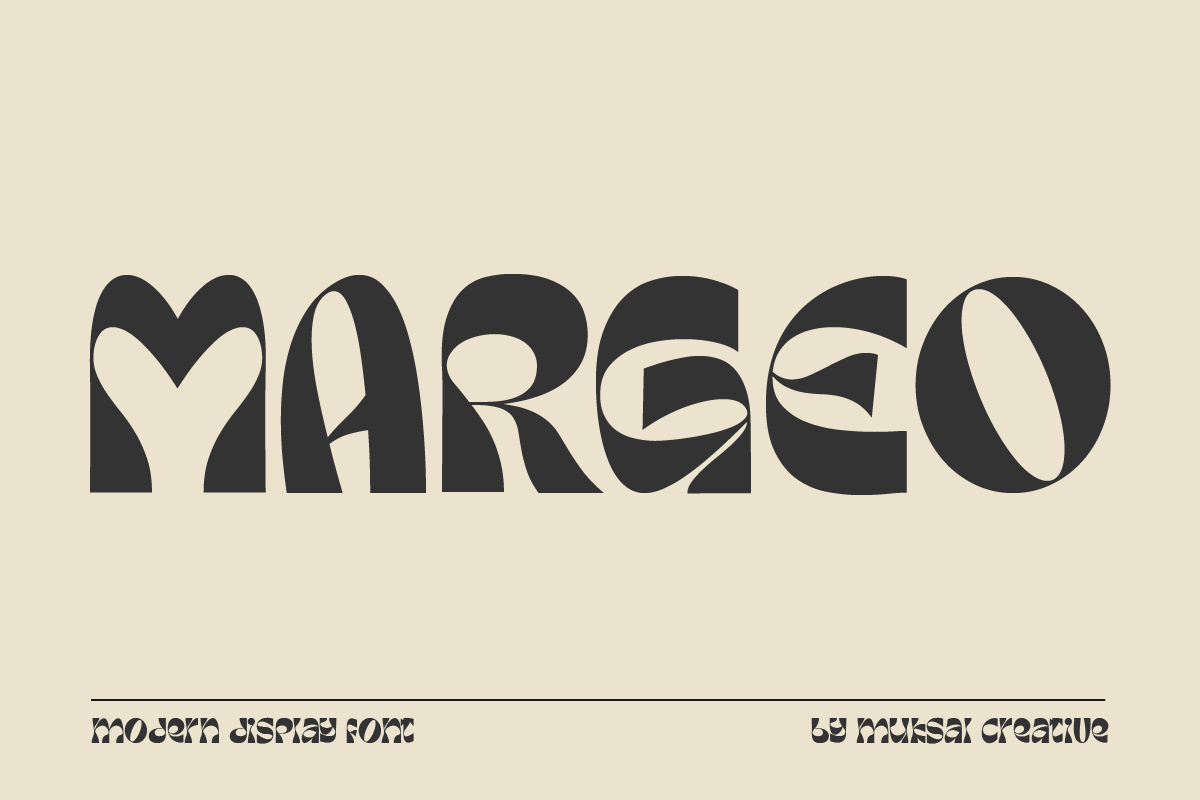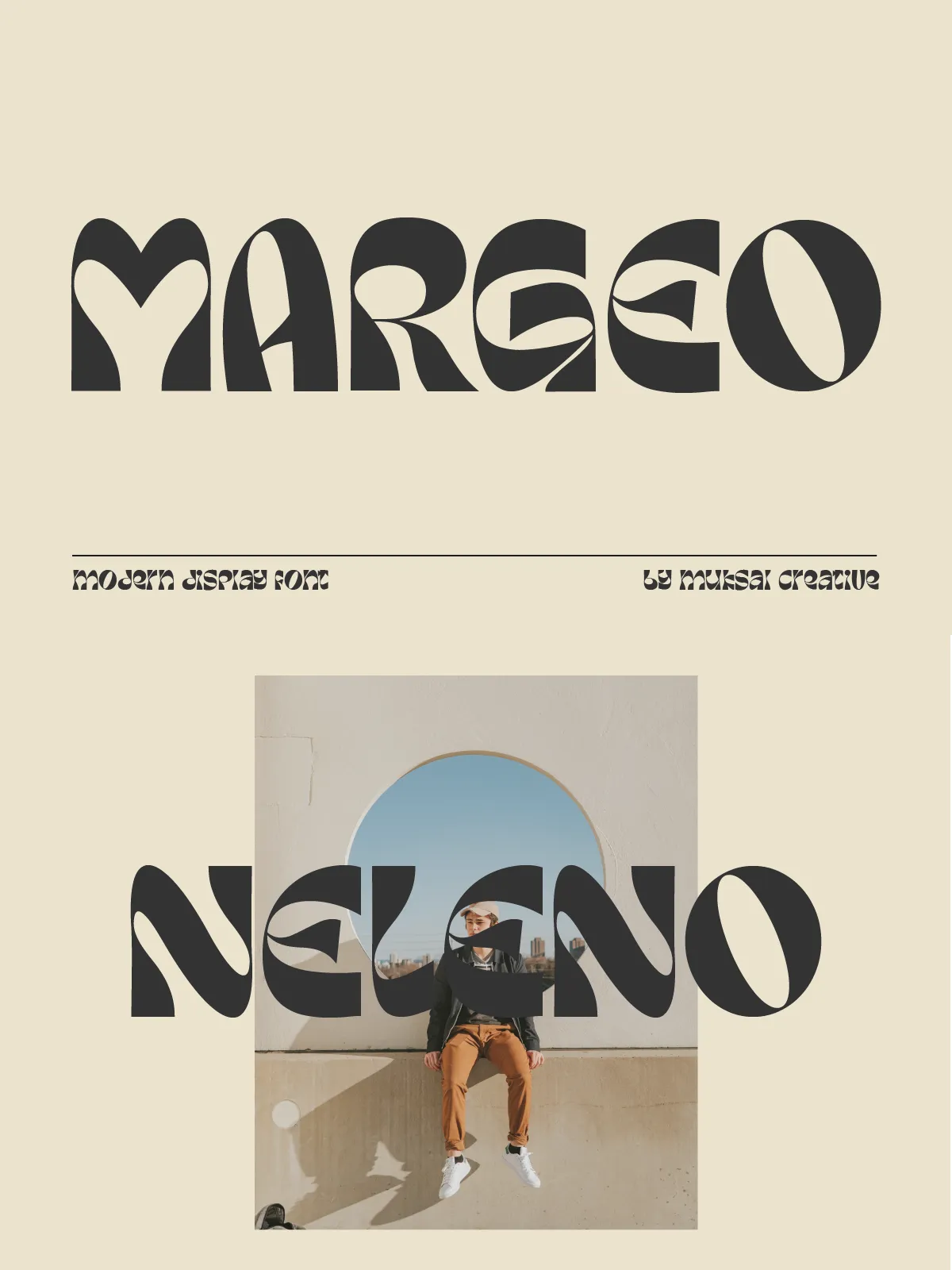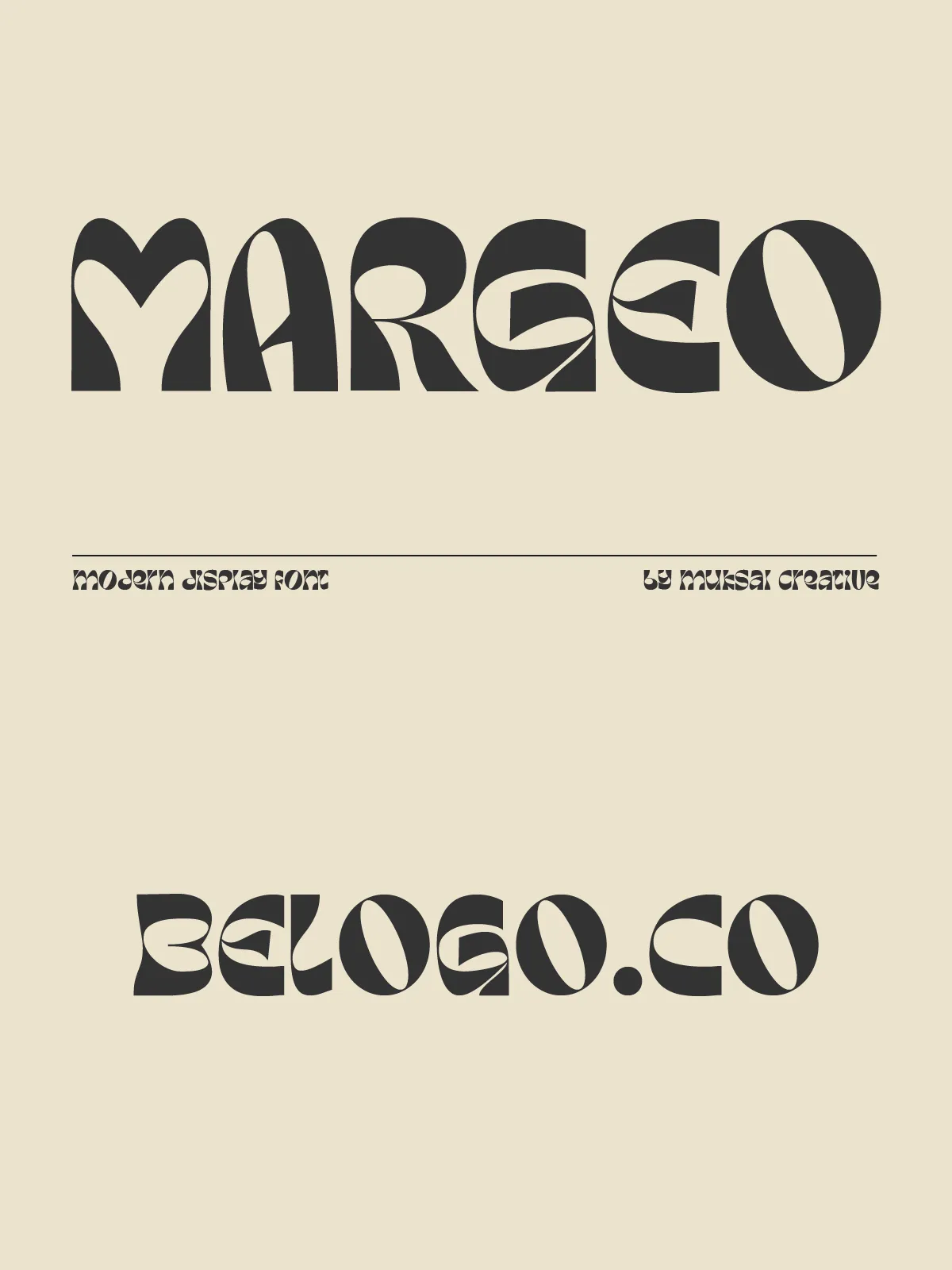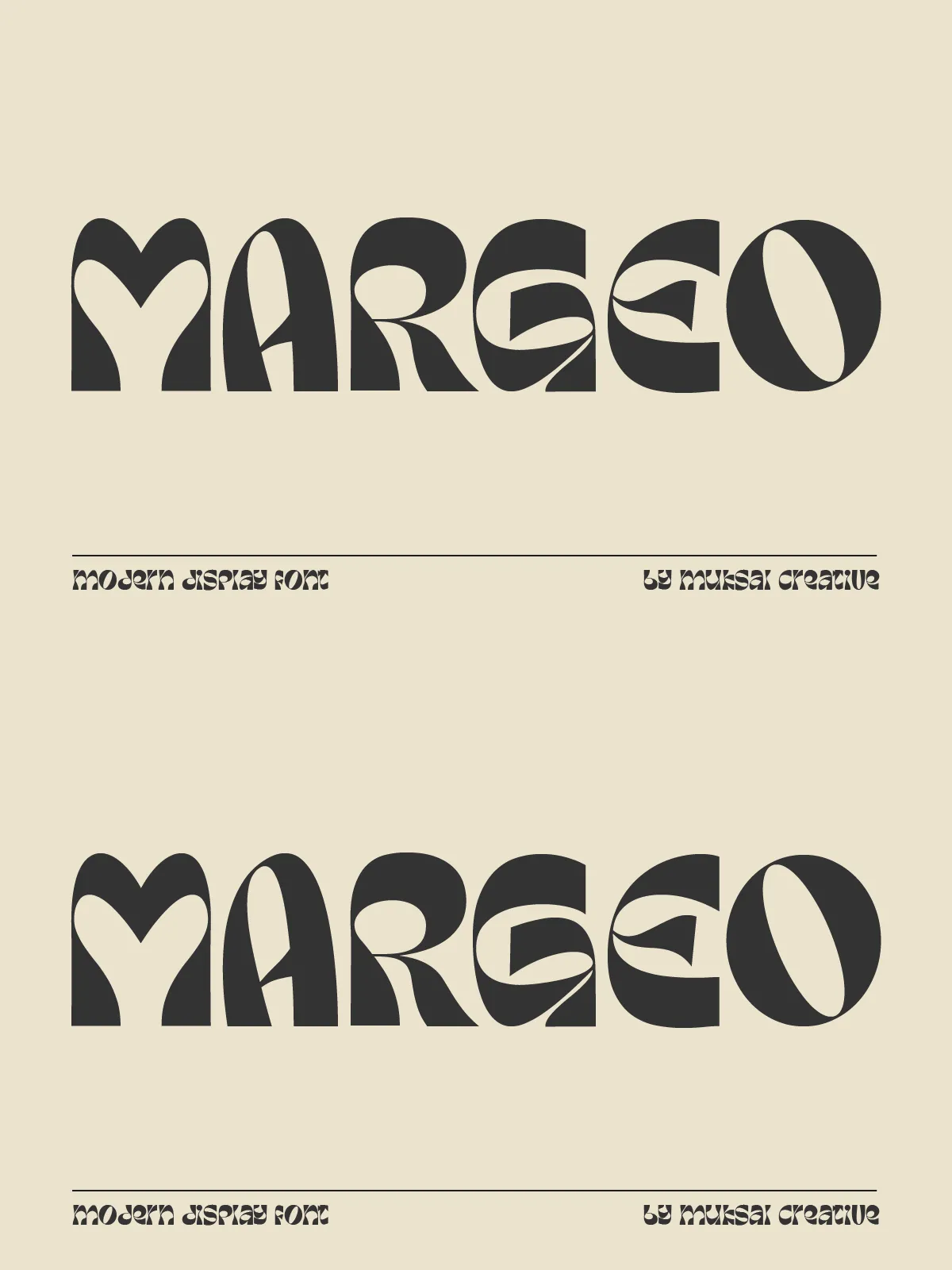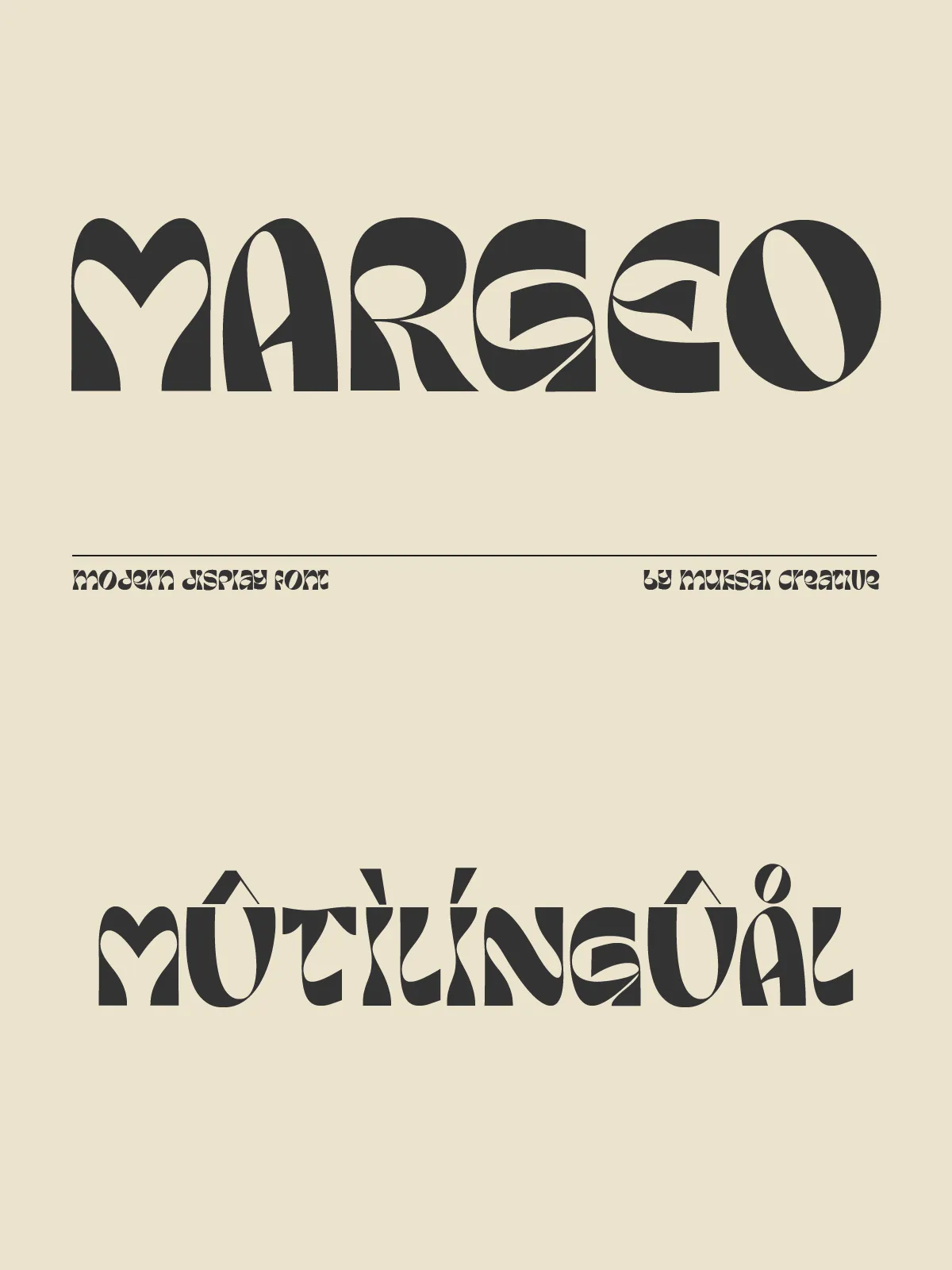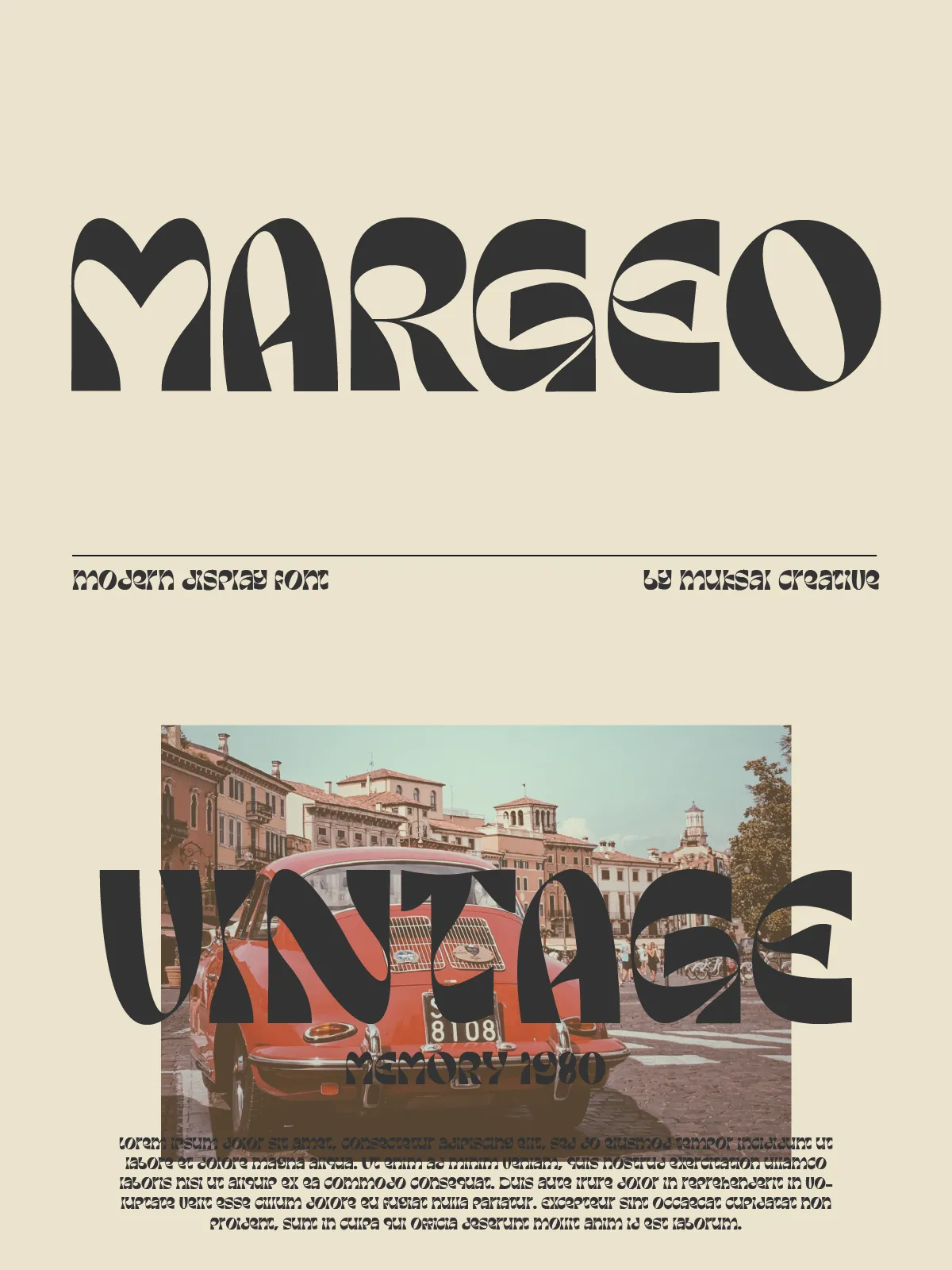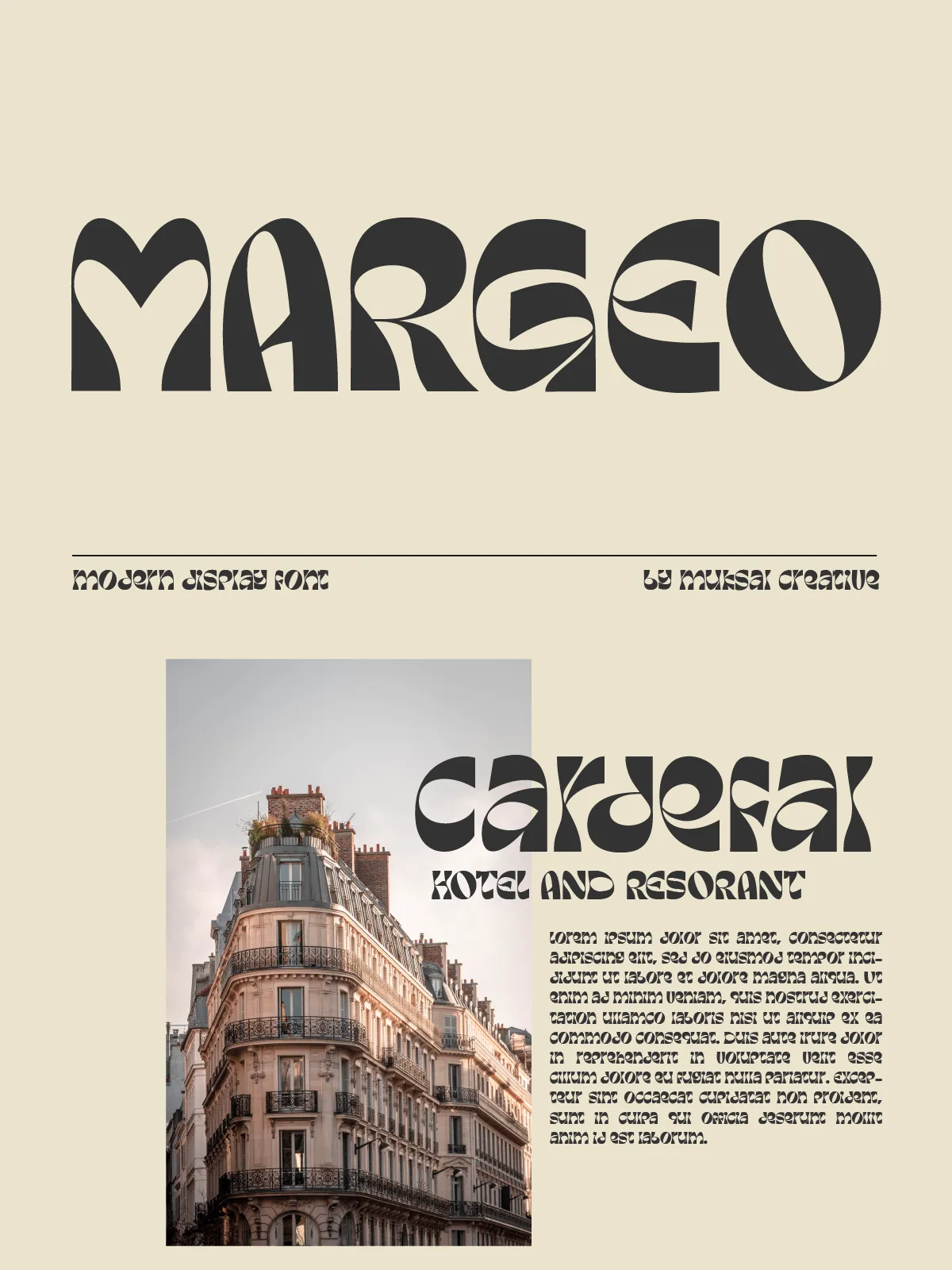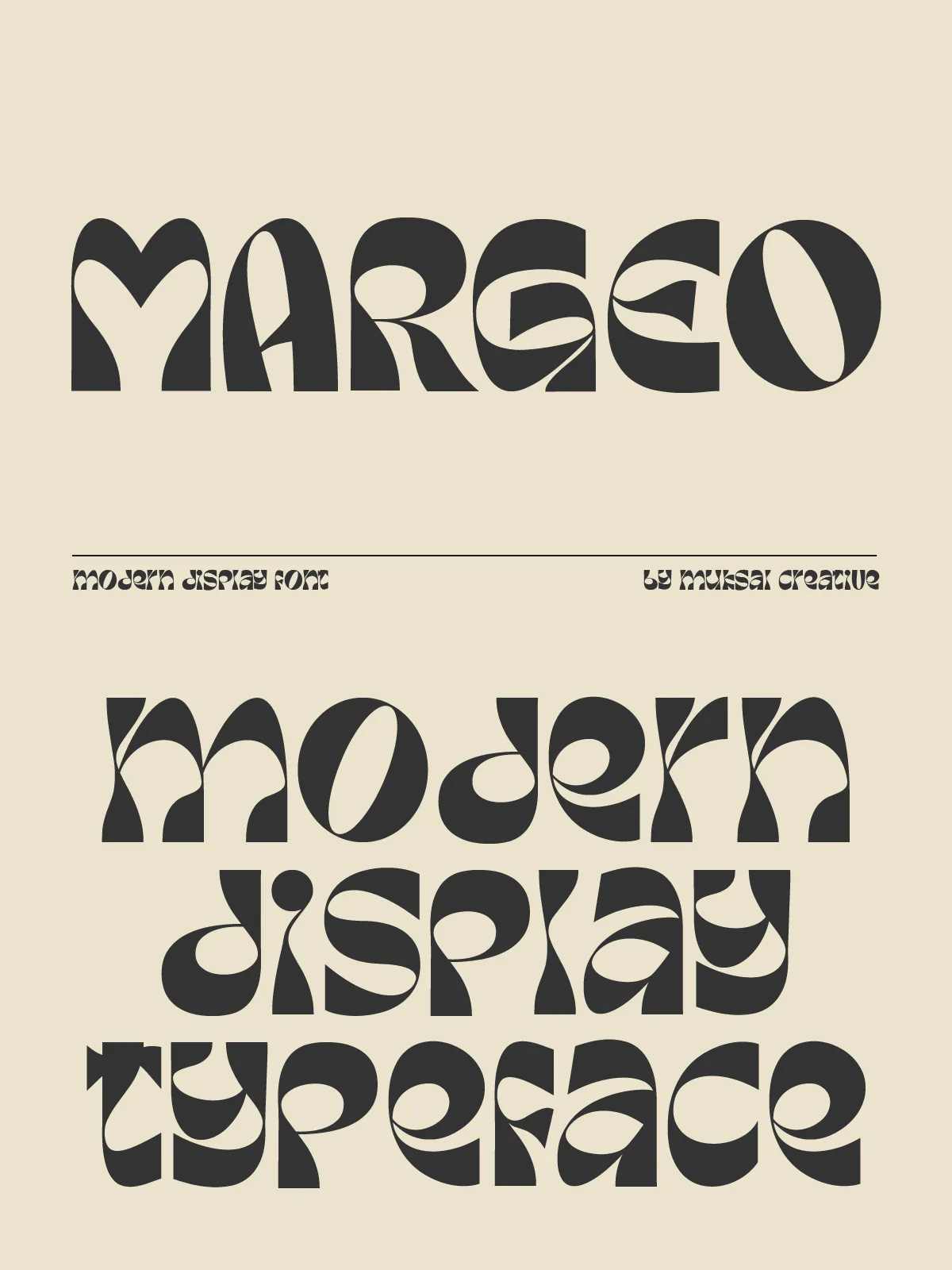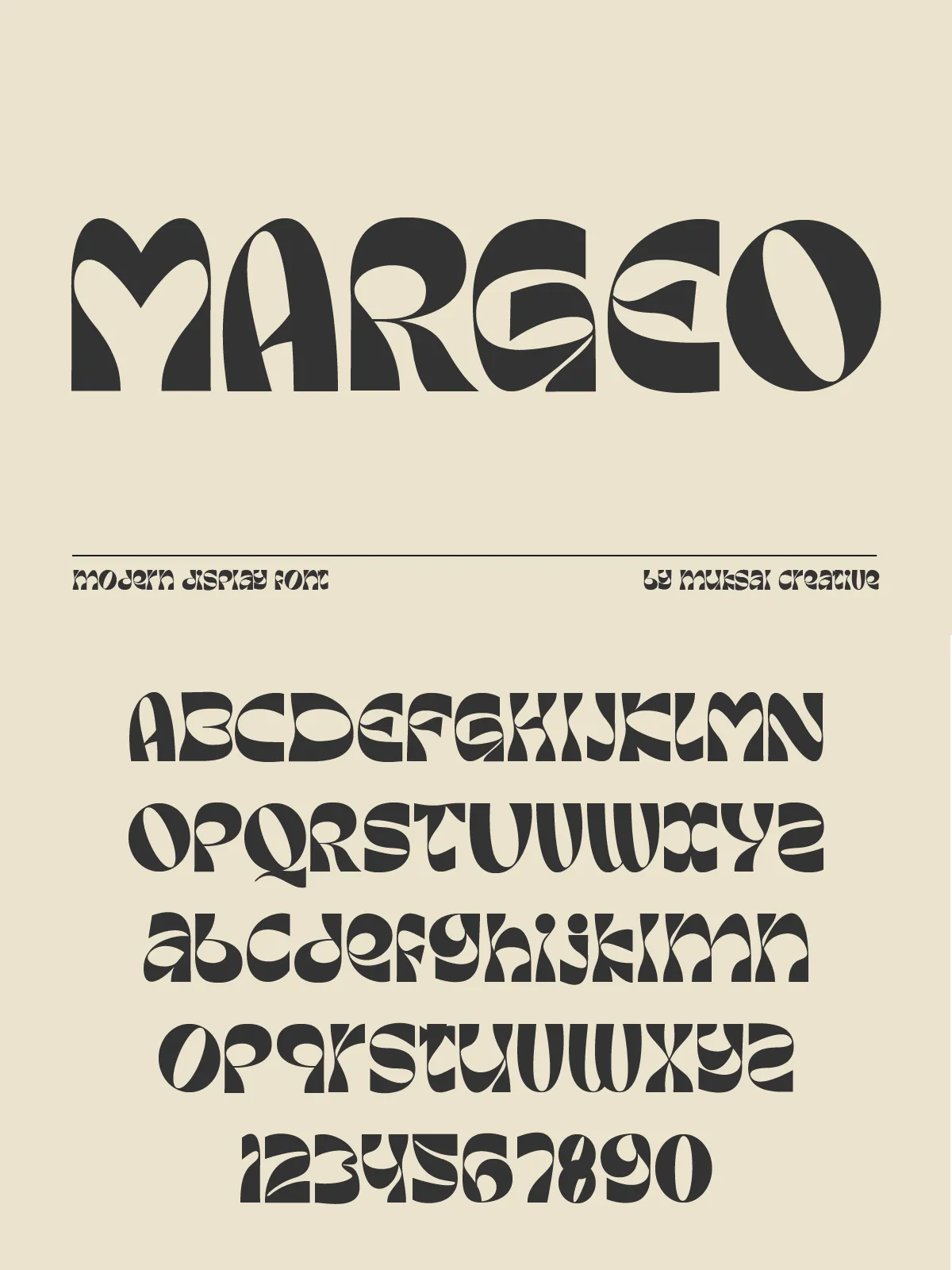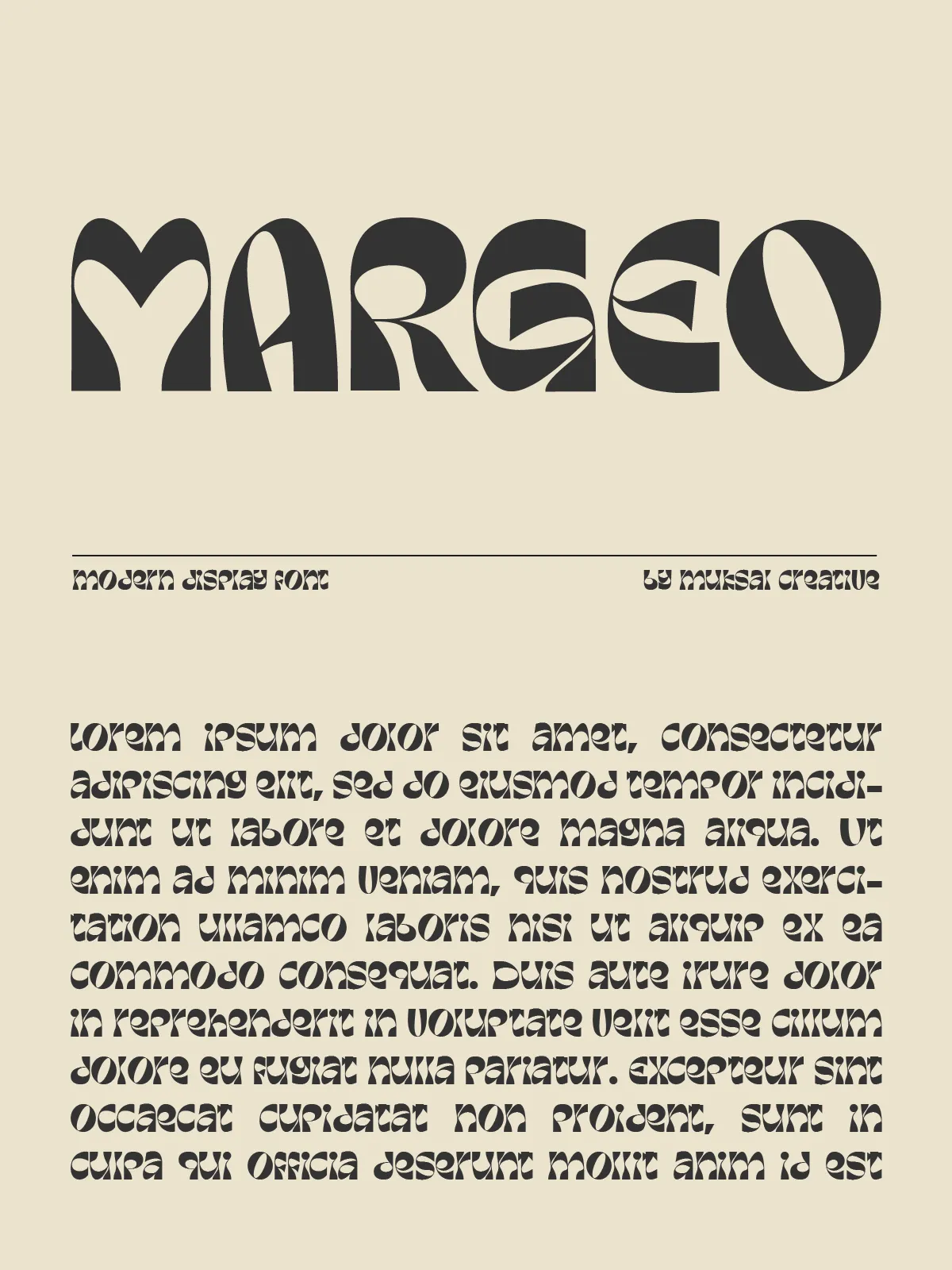
Introducing Margeo Modern Display Font — a masterclass in contemporary typographic design. This is not just a font; it’s a design catalyst engineered for creators who demand visual impact, refined detail, and effortless adaptability. With its elegant blend of special glyphs, ornamental flourishes, and robust multilingual support, Margeo transforms every project into a statement of sophistication and style.
From bold headlines to intricate branding, Margeo performs flawlessly at any size — whether dominating a billboard or enhancing a delicate text overlay. Its clean, modern structure delivers crisp clarity and maximum visual harmony, making it a top choice for high-end digital and print applications.
Why Margeo Stands Out in a Sea of Typefaces
Margeo is built for performance, precision, and creativity. Here’s what sets it apart:
Stunning Special Glyphs & Ornamental Detail
Margeo features a curated set of unique special glyphs and decorative elements that add depth and personality to your design. Use them to create signature textures, decorative initials, or symbolic accents that instantly elevate your project’s visual identity. These ornamental components are not just decorative — they are functionally integrated into the font’s structure, maintaining spacing and readability at all sizes.
Seamless Multilingual Support
Designed for a global audience, Margeo supports multiple languages across Latin, European, and extended character sets. Whether you’re working with French, German, Spanish, Italian, Swedish, or other languages, Margeo ensures consistent, professional typography. It handles diacritics and special characters with accuracy and elegance — no compromises, no missing letters.
Perfect for Any Size, Any Medium
Whether you’re applying Margeo to a massive editorial header or embedding it into a subtle background text layer, the font adapts with remarkable clarity. Its precise stroke weights and balanced proportions ensure sharp, legible results across all resolutions — from low-dpi screens to high-definition prints.
Complete Character Set: Uppercase, Lowercase, Numerals, and Punctuation
Margeo delivers a fully comprehensive character set including:
- Uppercase and lowercase letters with consistent kerning and proportional spacing
- Standard numerals and punctuation marks for clean, professional text flow
- Alt forms and ligature support in OpenType versions for advanced typographic control
Applications That Demand Margeo’s Precision and Style
Editorial Design & Magazine Headers
Set the tone for any publication with Margeo’s commanding presence. Use it in headlines, mastheads, section breaks, or article titles to establish an immediate sense of high-end visual quality. Its ornamental flair adds just enough personality without distracting from the content.
Logo & Brand Identity Design
Create distinctive brand identities with Margeo. Use it for primary logotypes, brand slogans, or taglines. The font’s balance of modernity and character makes it ideal for fashion, lifestyle, and creative agencies looking to stand out in a crowded market.
Clothing Branding & Apparel Labeling
Make your garments memorable. Print Margeo on tags, labels, hangtags, or even direct-to-garment prints. The font’s strong visual presence and versatility ensure brand recognition, even at small text sizes.
Product Packaging Design
Enhance your packaging with elegance and attention to detail. Whether it’s a luxury skincare box, a premium beverage label, or a tech gadget sleeve, Margeo adds a layer of sophistication that elevates the entire unboxing experience.
Text Overlays on Backgrounds
Turn any image into a design canvas. Use Margeo for text overlays on social media graphics, presentation slides, photo edits, or digital ads. Its clean lines and high contrast ensure readability on any background, while its ornamental features add style and distinction.
Technical Excellence for Modern Design Workflows
Final Thoughts: Choose Margeo — For Designers Who Dream Big
Choosing Margeo isn’t just about selecting a font — it’s about choosing a partner in creativity. It empowers you to push aesthetic boundaries, deliver polished results, and leave a lasting impression. With its versatile structure, ornamental depth, and global reach, Margeo is the definitive display typeface for modern design.
Design with clarity. Create with confidence. Stand out with Margeo.